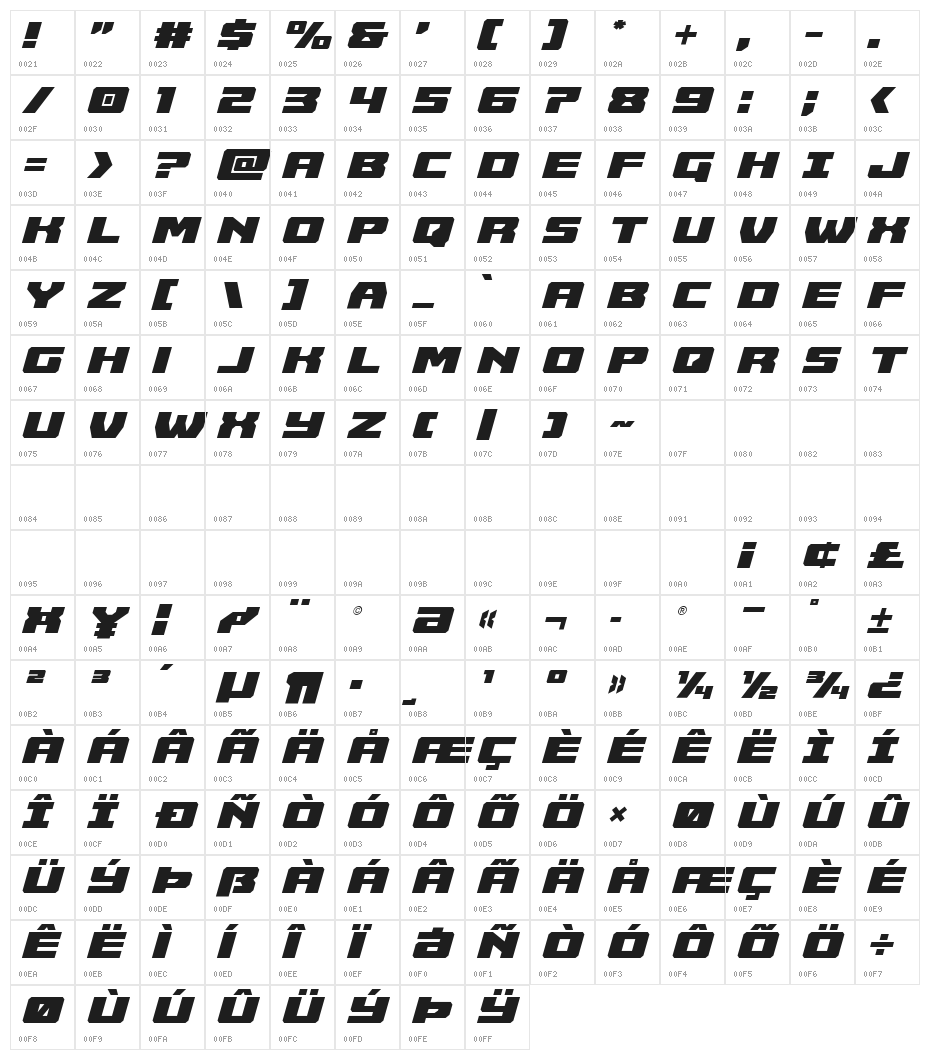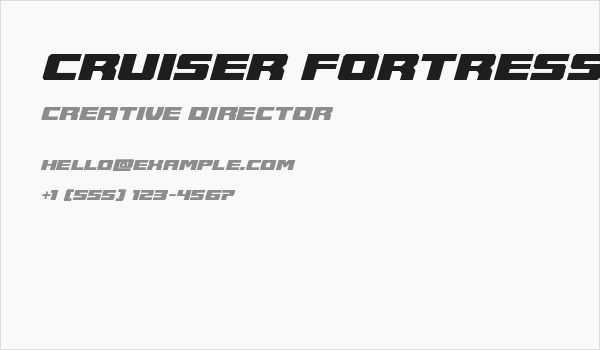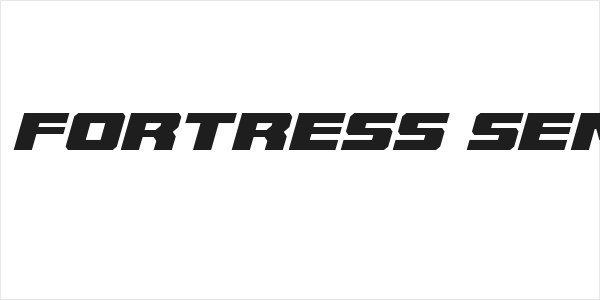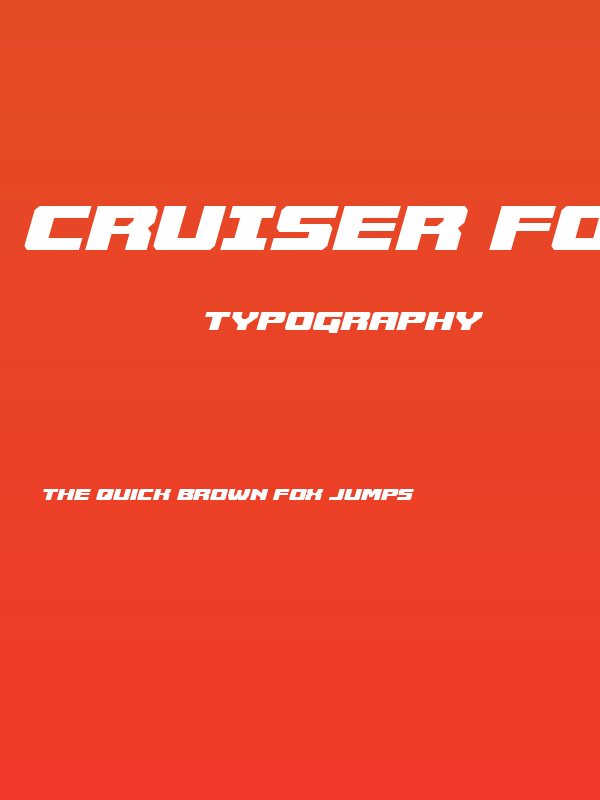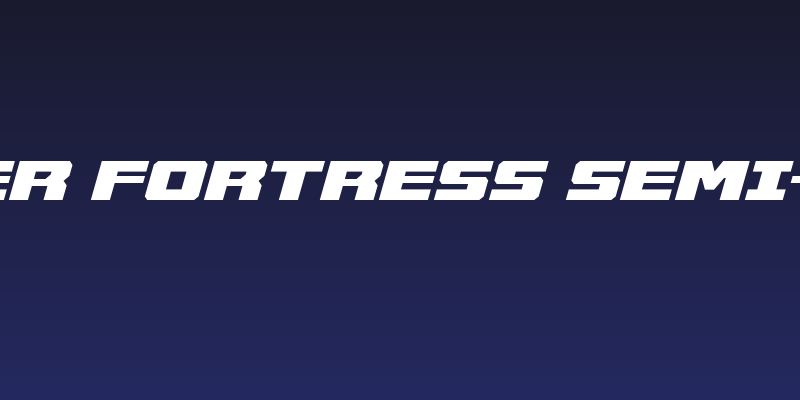
Cruiser Fortress Semi-Italic Font
Cruiser Fortress Semi-Italic Description
This font exhibits a bold and dynamic style, characterized by its angular and geometric letterforms. The characters are slightly italicized, giving them a forward-leaning, energetic appearance. The uppercase and lowercase letters maintain a consistent design, with sharp edges and a strong presence. The numerals and special characters follow the same bold and angular theme, ensuring uniformity across all glyphs. The font's design is reminiscent of futuristic or sci-fi aesthetics, making it suitable for projects that require a modern and impactful look.
| Proposed Projects | Ideal for sci-fi themed projects, video game titles, movie posters, and branding that requires a modern and bold statement. |